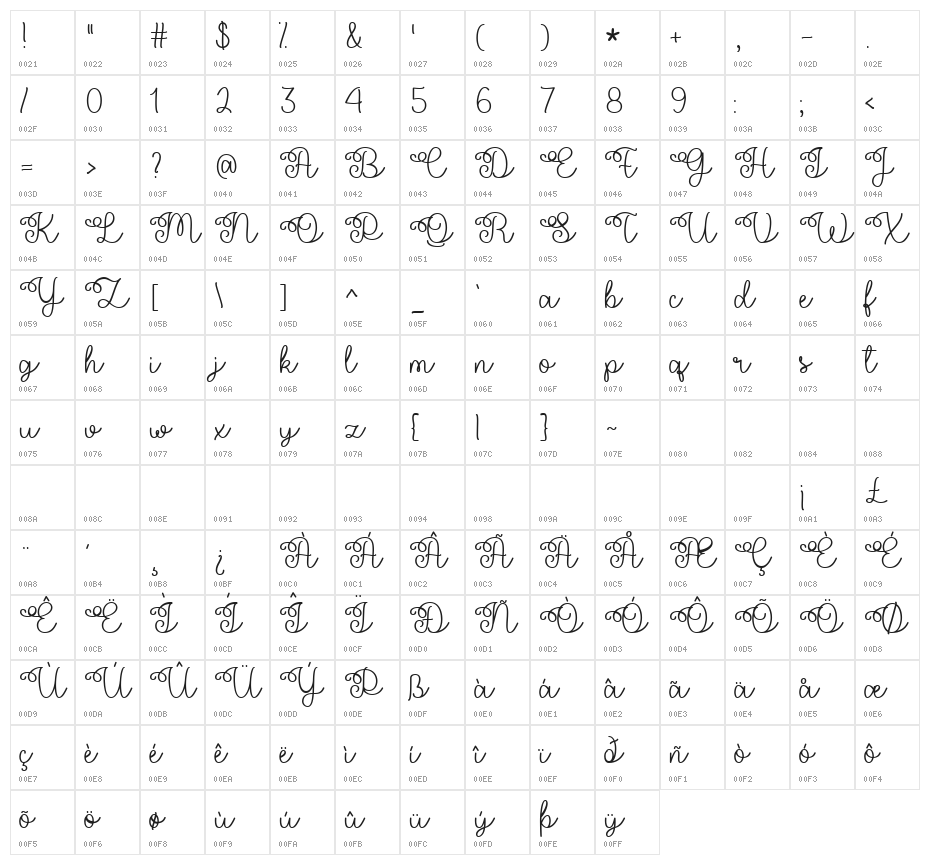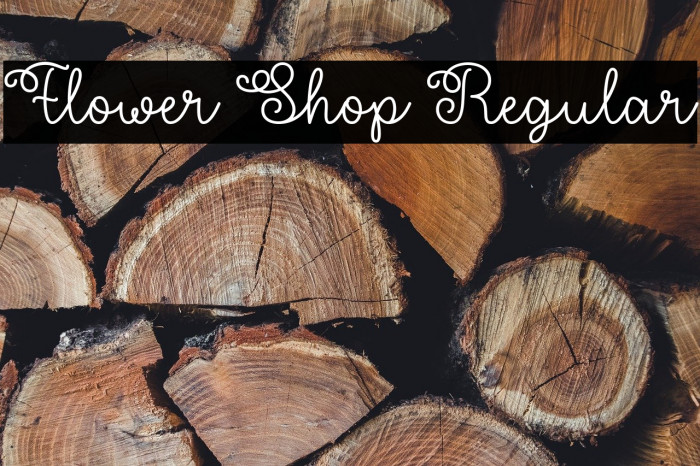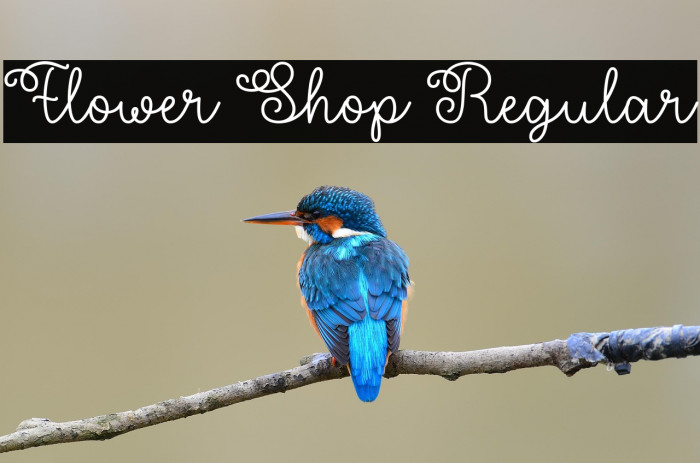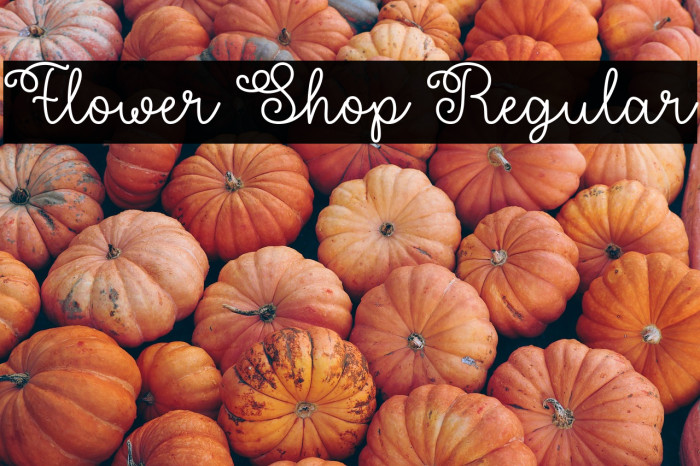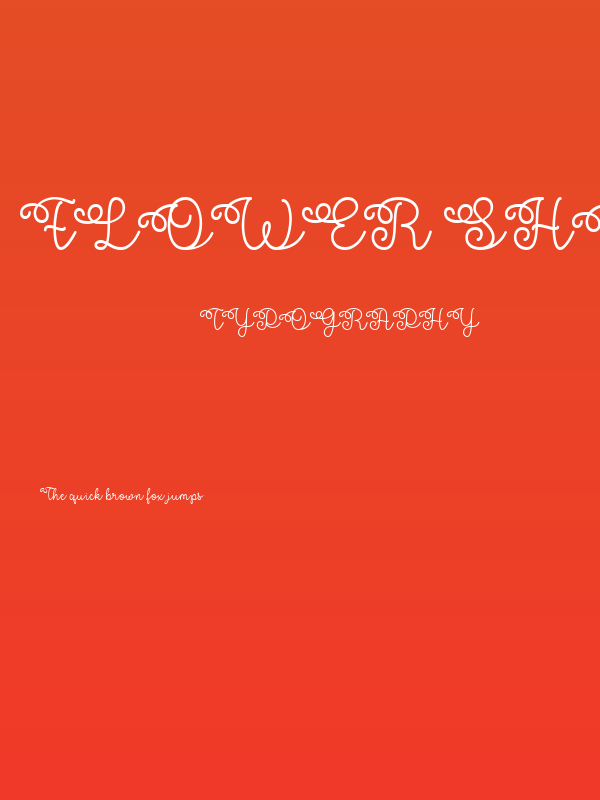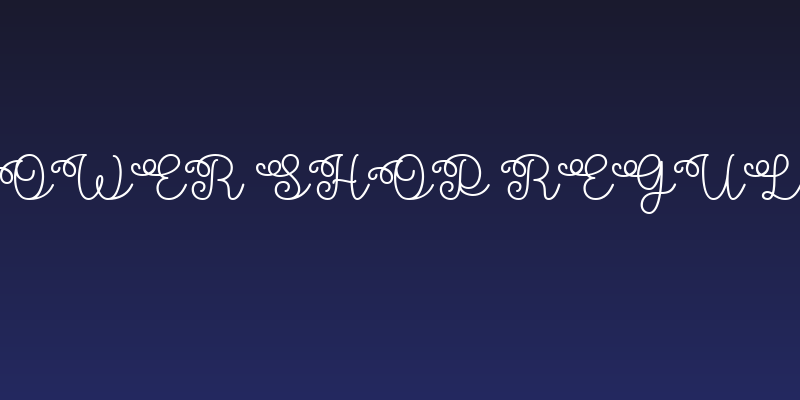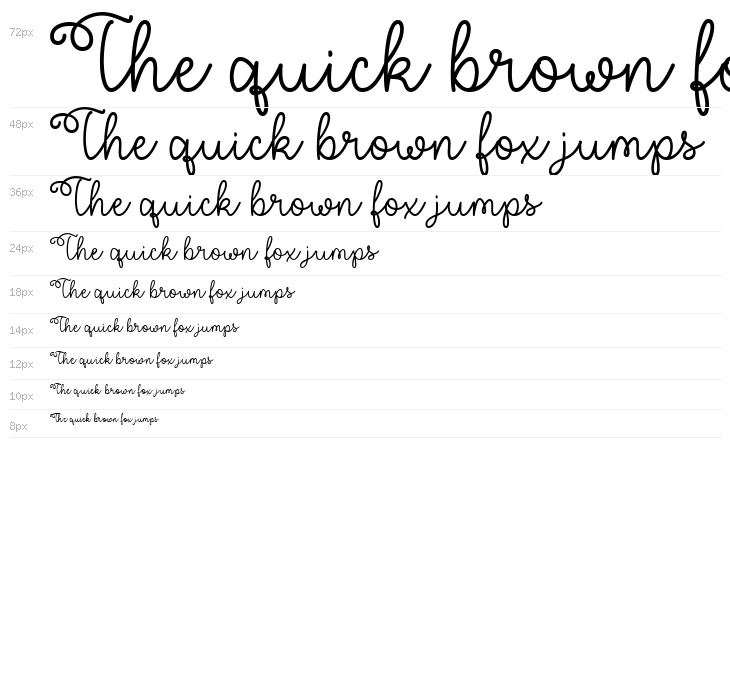
Flower Shop Regular Font
Flower Shop Regular Description
This font features a whimsical and decorative style, characterized by its playful curls and loops. The uppercase letters are adorned with heart-like embellishments, giving them a unique and charming appearance. The lowercase letters maintain a smooth, flowing script that complements the ornate uppercase. The numerals are rounded and consistent with the overall playful theme. Special characters are creatively integrated, maintaining the font's decorative nature. This font is ideal for projects that require a touch of elegance and creativity, such as invitations, greeting cards, or branding for creative businesses.
| Proposed Projects | Ideal for wedding invitations, greeting cards, creative branding, and decorative signage. |